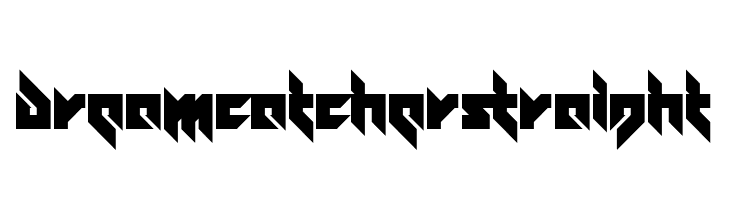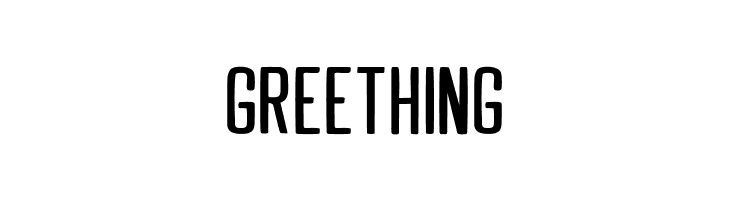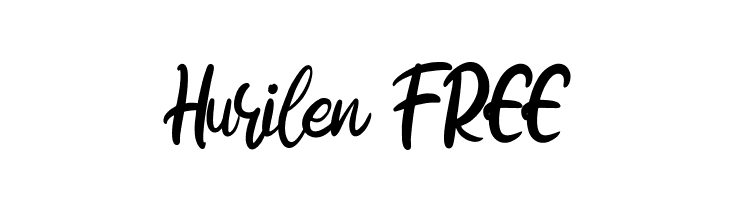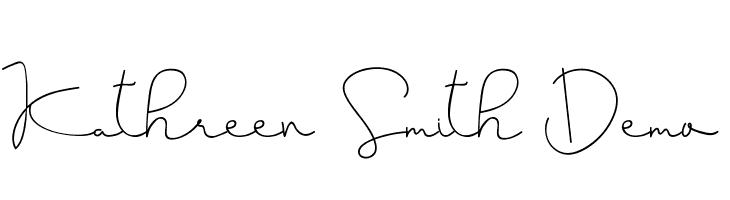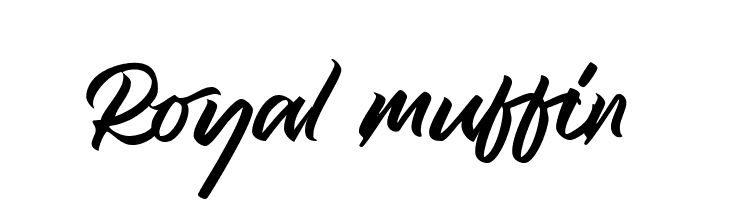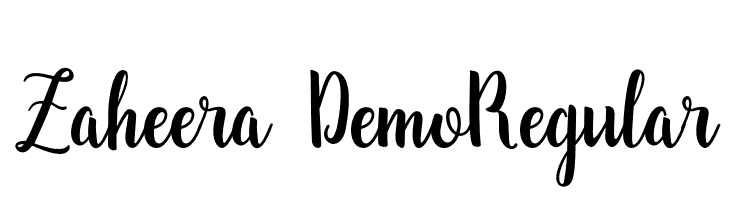
A playful, bold script font with a handwritten style.
A bold, playful font with a graffiti-like, urban style.
A modern, geometric font with elongated letterforms and uniform stroke width.
A delicate and flowing script font with elegant, cursive letterforms.
A bold, playful font with a hand-drawn, whimsical style.
A cursive, handwritten-style font with elegant, flowing strokes.
A bold, italic font with high contrast and sharp serifs, exuding elegance and dynamism.
A modern, italicized font with smooth, rounded edges and consistent stroke width.
A bold, brush-style script font with flowing, connected characters.
A bold, expressive script font with a hand-painted look.